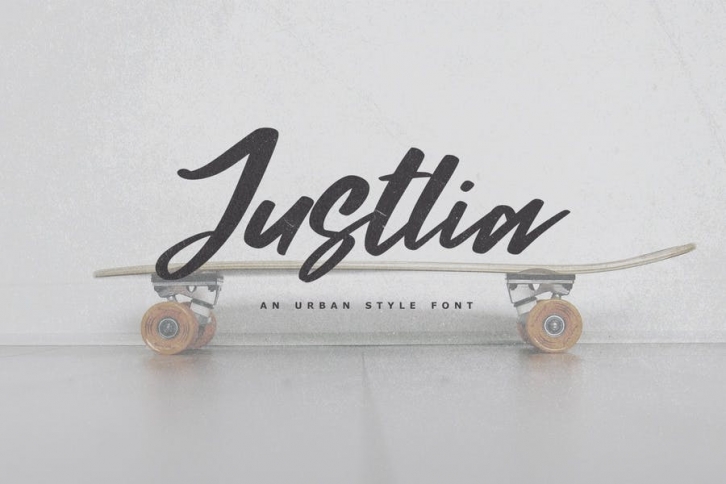
Justlia - An Urban Style Font
Justlia - An Urban Style Font, every single letter has been carefully crafted to make your text looks beautiful. it's perfect for logos, name cards, magazine layouts, invitations, headers, or even large-scale artwork.